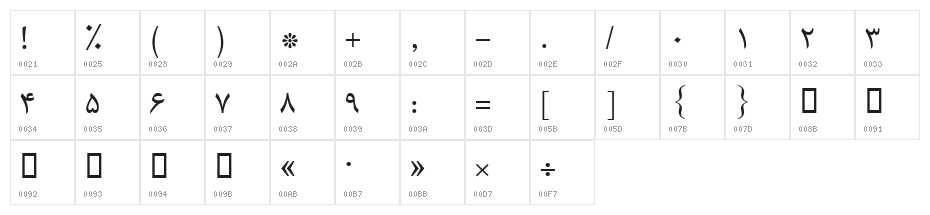
B Mitra Font
B Mitra Description
This font features a distinctive Persian script style, characterized by its elegant and flowing curves. The characters are designed with a harmonious balance, showcasing a blend of traditional calligraphic elements with a modern touch. The numerals are uniquely styled to complement the overall aesthetic, providing a cohesive look across both letters and numbers. The special characters maintain the same fluidity, ensuring consistency throughout the font. This typeface is ideal for projects that require a touch of cultural authenticity and sophistication.
| Use Case | Logos, Decorative text, Cultural publications |
| Proposed Projects | Ideal for cultural publications, artistic projects, branding materials, and decorative invitations. |